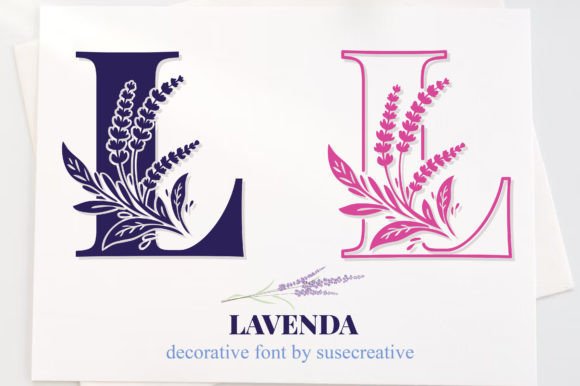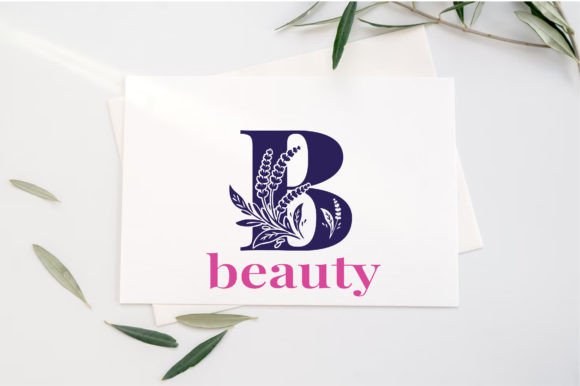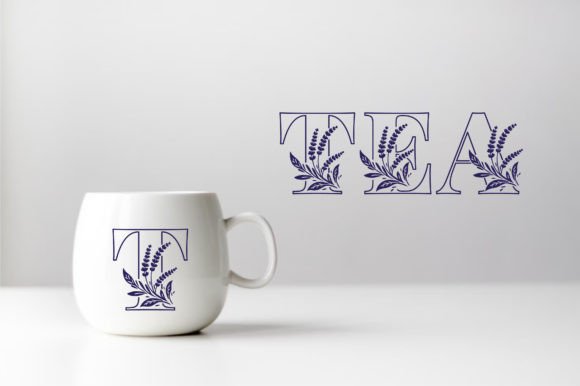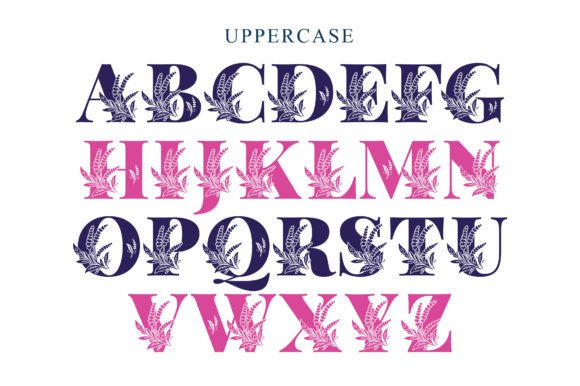
Lavenda Font: Elegant Decorative Font with Lavender Silhouettes
About the Lavenda Font
The wait is over! The incredible Lavenda Font is now available for your design toolkit. Lavenda Font is a decorative typeface designed especially for those who appreciate beauty and elegance in design. The fusion of uppercase letters with lavender silhouettes adds grace to your designs. Perfect for various types of designs including book covers, screen printing, invitations, and more.
Lavenda’s elegant, decorative style makes it ideal for headlines, short text blocks on invitations or packaging, and branding elements where a touch of sophistication is desired. It excels in projects requiring visual impact, such as posters or short-form marketing materials. However, its decorative nature makes it unsuitable for body text or UI elements where readability is paramount; long paragraphs set in Lavenda would be difficult to read.
Consider pairing Lavenda with a clean sans-serif like Open Sans for body copy to balance its ornate details. For a more luxurious feel, a classic serif font such as Garamond would provide a sophisticated counterpoint. Avoid pairing it with other highly decorative typefaces, which would create visual clutter.
Lavenda projects an air of refined femininity and understated luxury. It’s a perfect fit for brands associated with beauty, fashion, high-end products, or events requiring an elegant and memorable visual identity.
Lavenda Font Usage Examples
Lavenda Font Example